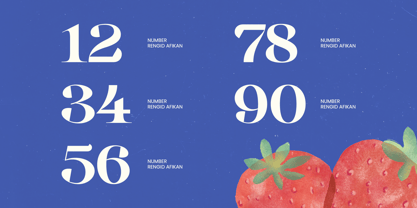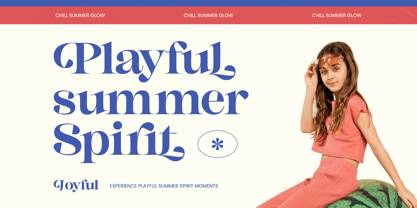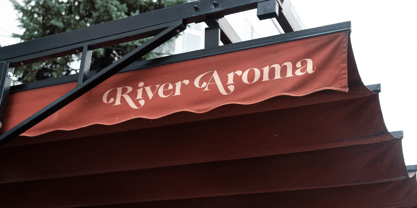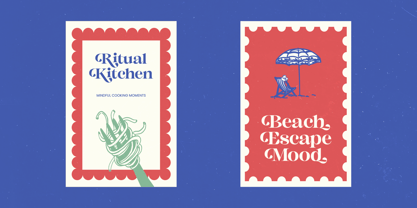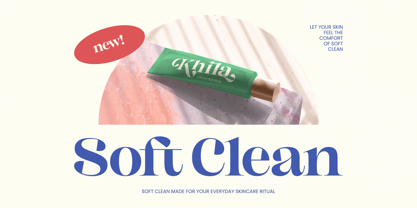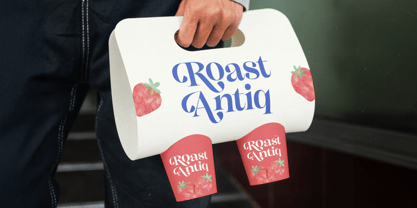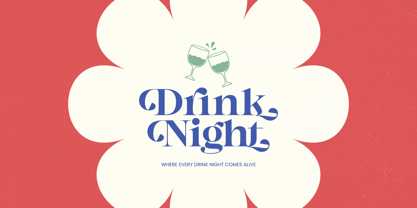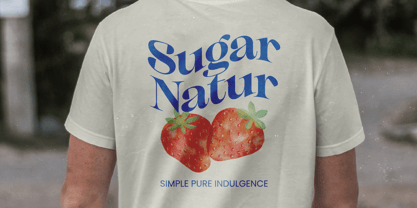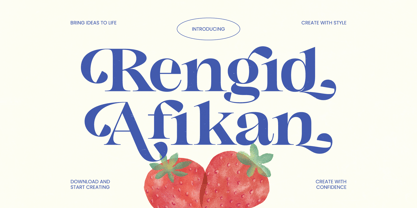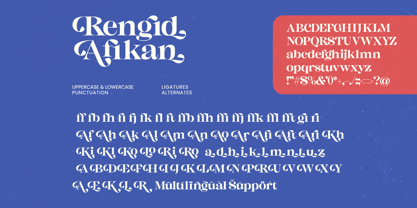
Rengid Afikan
La familia tipográfica Rengid Afikan fue diseñada por Heru Utama Putra y publicada por Timelesstype Studio. Rengid Afikan contiene 2 estilos y opciones de paquete familiar. Más información sobre esta familia
Command attention with the sophisticated and commanding presence of Rengid Afikan - Bold Serif Display. This typeface represents a masterful fusion of high-contrast strokes and fluid, organic curves, designed to capture the essence of modern luxury. By blending classical serif foundations with contemporary flair, Rengid Afikan - Bold Serif Display creates a visual impact that is both authoritative and elegant, making it an essential asset for any premium design toolkit.